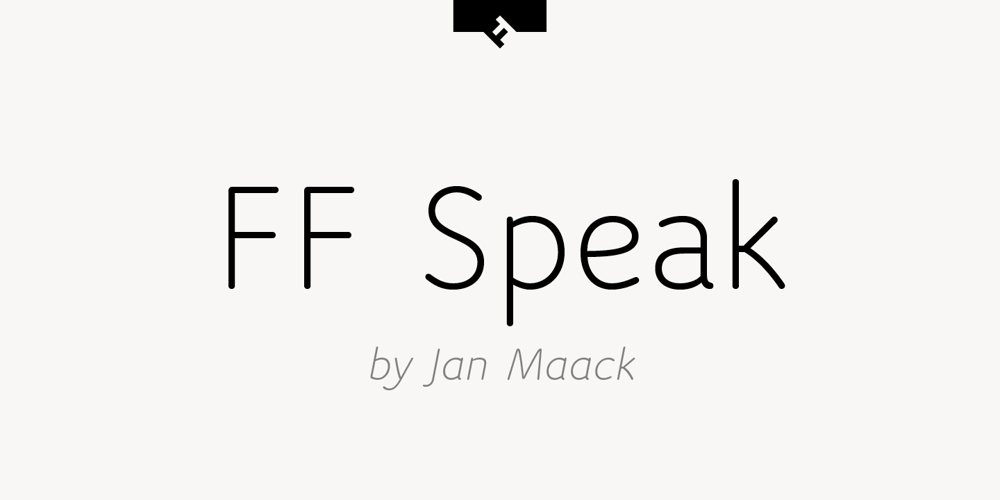
FF Speak Font Family was designed by Jan Maack and published by FontFont. FF Speak contains 8 styles and family package options. Danish type designer Jan Maack created this sans-serif FontFont in 2007. The family has 8 weights, ranging from Light to Heavy (including italics) and is ideally suited for advertising and packaging, editorial and publishing, logo, branding and creative industries as well as web and screen design. FF Speak provides advanced typographical support with features such as ligatures, case-sensitive forms, fractions, super- and subscript characters, and stylistic alternates. It comes with tabular lining and proportional lining figures.